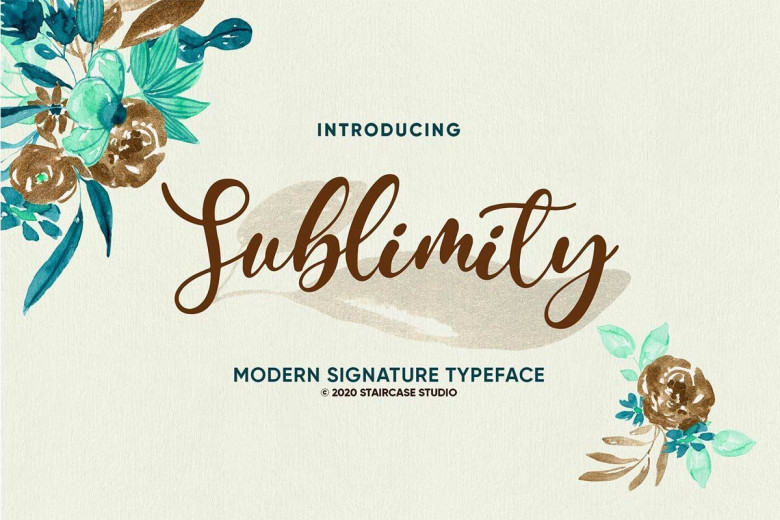
Sublimity Calligraphy Script Font
Introducing Sublimity Font, a sweet calligraphy script typeface made of all things lovely and sweet. It’s perfect for branding, wedding invites, logos, magazines, photo overlays, blogs and so much more!